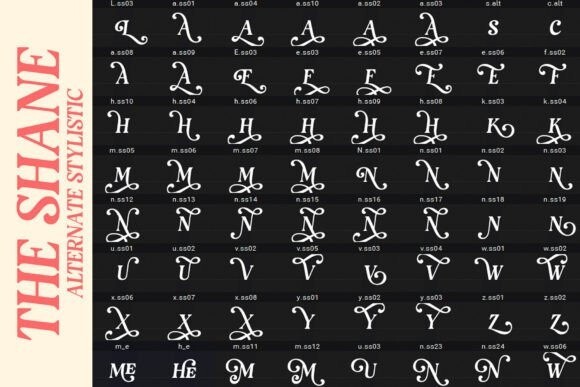
The Shane Font
The Shane Font, a Serif display font that has a classic, feminine, and elegant style wrapped with a beautiful Alternate stylist.
The Shane Font is perfect for various projects like logos & branding, invitations, stationery, wedding designs, social media posts, advertisements, printed quotes, product packaging, product designs, labels, photography, watermarks, special events or anything else.